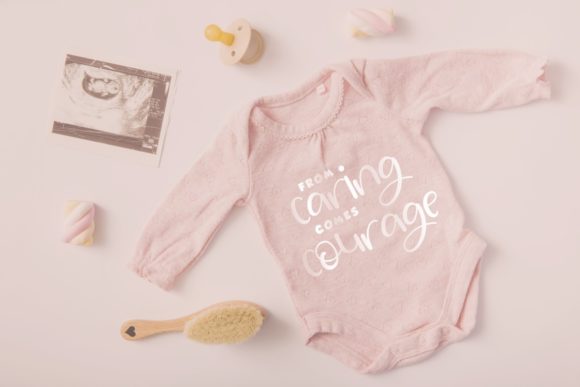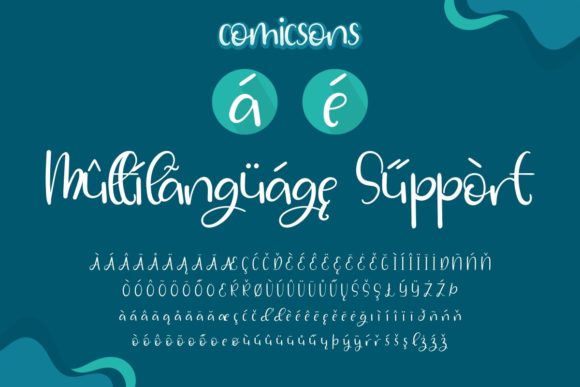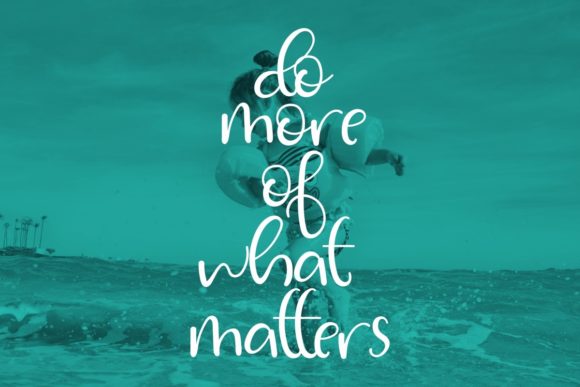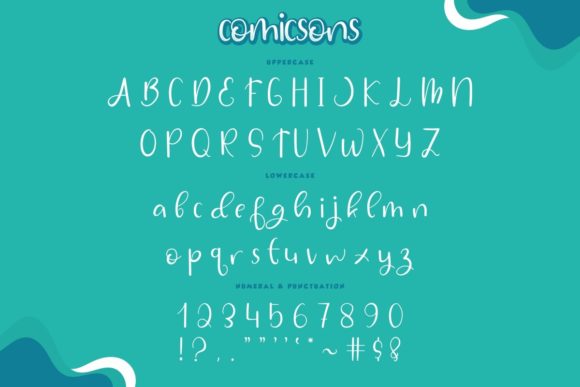
ComicSons Font
About ComicSons Font
ComicSons is a round lettered and flowing script font. It is the best choice for creating eye catching logos, branding and quotes. Every letter has a unique and beautiful touch, which will make your design come alive!